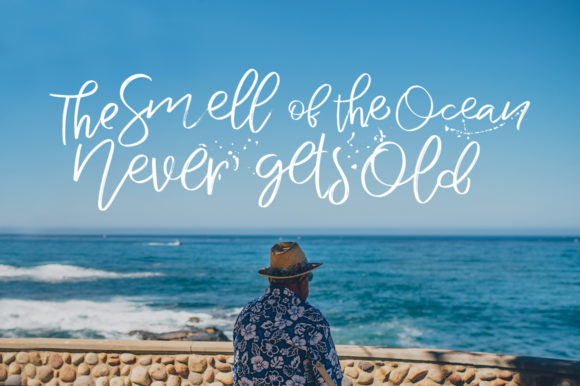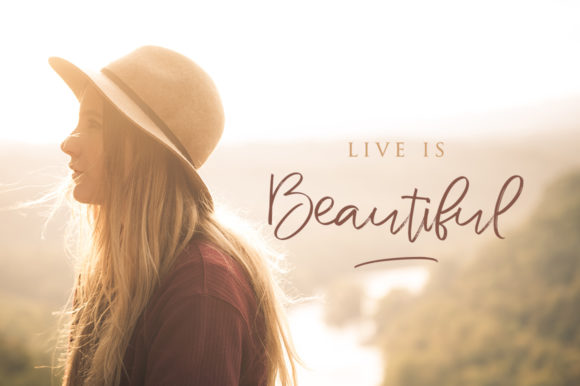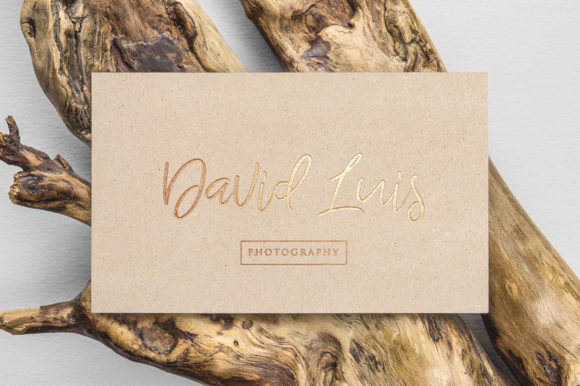
Introduction to Jandys Font
Have you ever found yourself stuck in the middle of a creative project, desperately searching for the perfect font to bring your vision to life? I’m sure we’ve all been there. As designers, we know how crucial it is to have a reliable design resource that can elevate our work and make it truly stand out. That’s where the Jandys Font comes in – a smooth and simple font that exudes elegance and sophistication.
What sets Jandys Font apart is its delicate and unique style, which adds a casual yet refined feel to any design idea. With its high-quality design and transparent background, this font is perfect for designers looking to create something truly special. And the best part? It’s available for free download, making it an invaluable asset for any creative project.
Key Features of Jandys Font
- Unique, handcrafted font with a transparent background, allowing for seamless integration into various designs.
- Features a large character set, including uppercase and lowercase letters, numerals, and special characters.
- Designed with a clean, modern aesthetic, making it perfect for a wide range of creative projects, from logos to typography-based art.
Honest Review: Jandys Font
I recently came across the Jandys Font and was excited to give it a try. As a designer, I’m always on the lookout for high-quality design resources to elevate my creative projects.
Here’s what works well: ✨ The Jandys Font is incredibly versatile and can be used for a wide range of applications, from print to digital media. The font is well-designed and has a unique, modern aesthetic that’s sure to catch attention. Additionally, the transparent background makes it easy to integrate into any design.
Here are some of the key features:
- High-quality design with a modern aesthetic
- Wide range of applications, from print to digital media
Overall, I’m impressed with the Jandys Font and would definitely recommend it to fellow designers looking for a high-quality, versatile design resource.
The Jandys Font is a high-quality design resource ideal for creative projects requiring a unique touch. This versatile font can be used in various design applications.
Tips for Getting the Most Out of Jandys Font
For optimal results, use Jandys Font in conjunction with other high-quality design resources. Experiment with different font sizes, colors, and combinations to achieve a unique and eye-catching design.
Jandys Font is ideal for various creative projects, including logos, business cards, brochures, and social media graphics. Its versatility and high-quality design make it a valuable addition to any design toolkit.